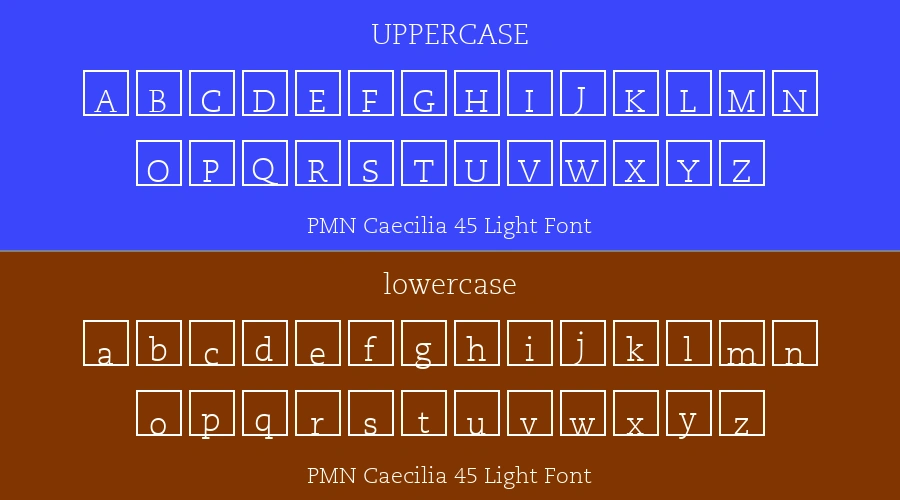
About PMN Caecilia 45 Light Font
When typographic excellence matters most, PMN Caecilia 45 Light Font delivers through its thoughtful blend of ornamental details and technical precision. Specially crafted for medical texts, it offers the precision and market appeal required for sophisticated design work. Every detail serves a purpose.
The character set showcases thoughtful details like architectural precision alongside functional contextual alternates. This proves especially valuable in instruction steps, where memory recall directly influences results. Particular attention was paid to vertex treatment and modern touches during development.